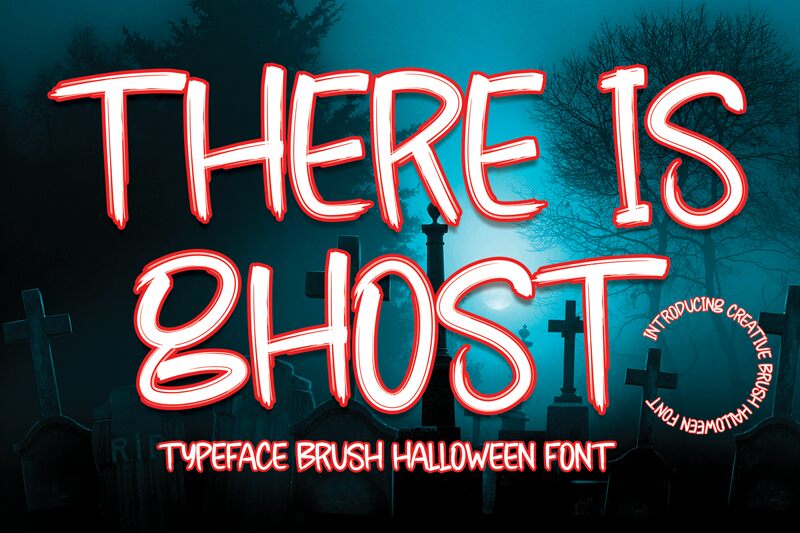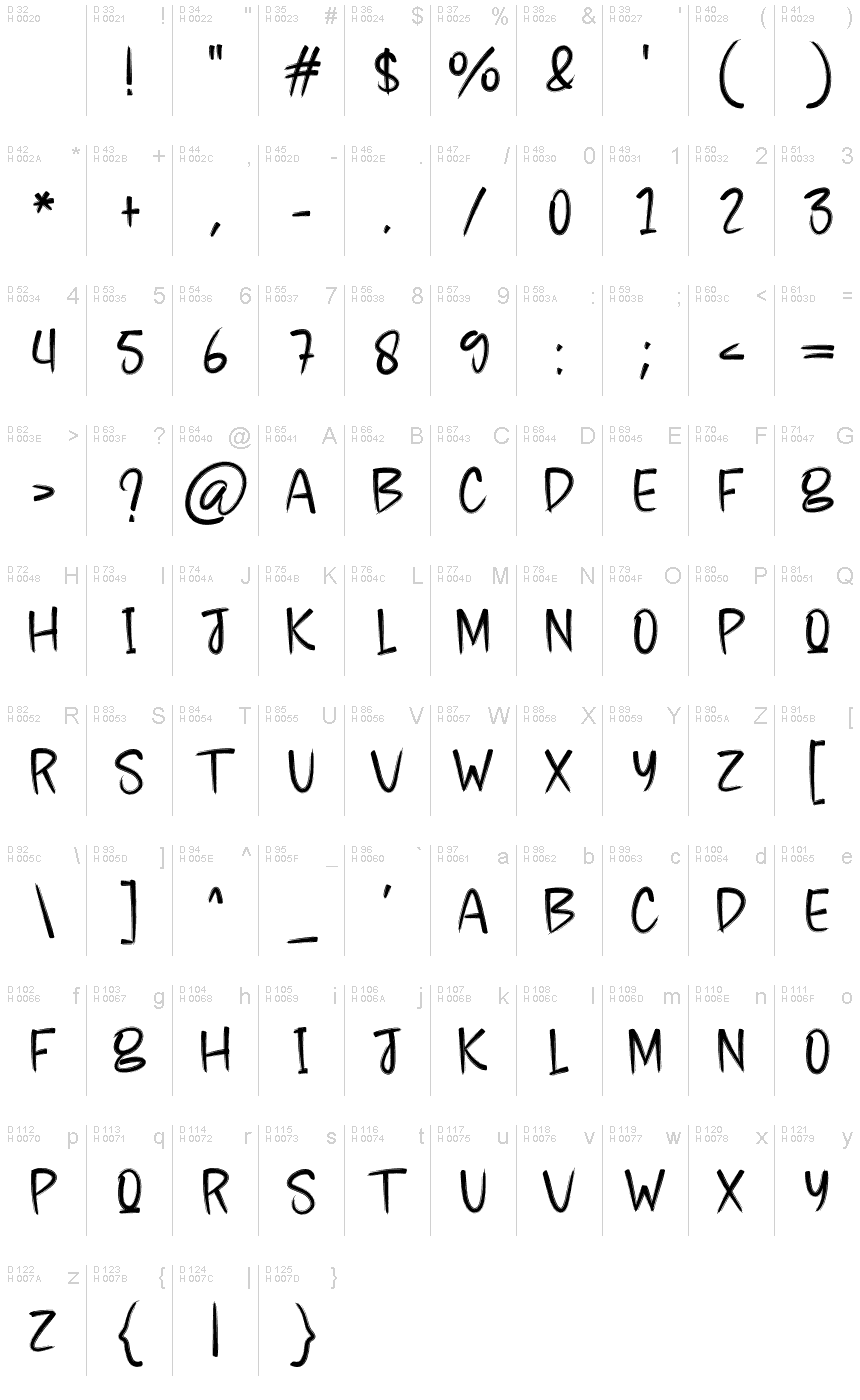
There Is Ghost
There Is Ghost, crafted by Scratchones, embodies the spontaneous energy of brush strokes with a semi-light weight that lends it an airy yet impactful presence. This font captures the essence of hand-painted signage with its organic variations and fluid line work. Its style exudes a casual but assertive character, making it perfect for projects that require a personal touch with a hint of edginess.
Ideal for artistic ventures ranging from music album covers to contemporary branding, There Is Ghost is versatile enough to infuse any design with personality. It's particularly well-suited for creative headings, stylish logos, and engaging promotional materials where a touch of human flair is desired. The semi-light weight ensures readability while maintaining an unrefined aesthetic appeal that can make any message stand out with authenticity and flair.